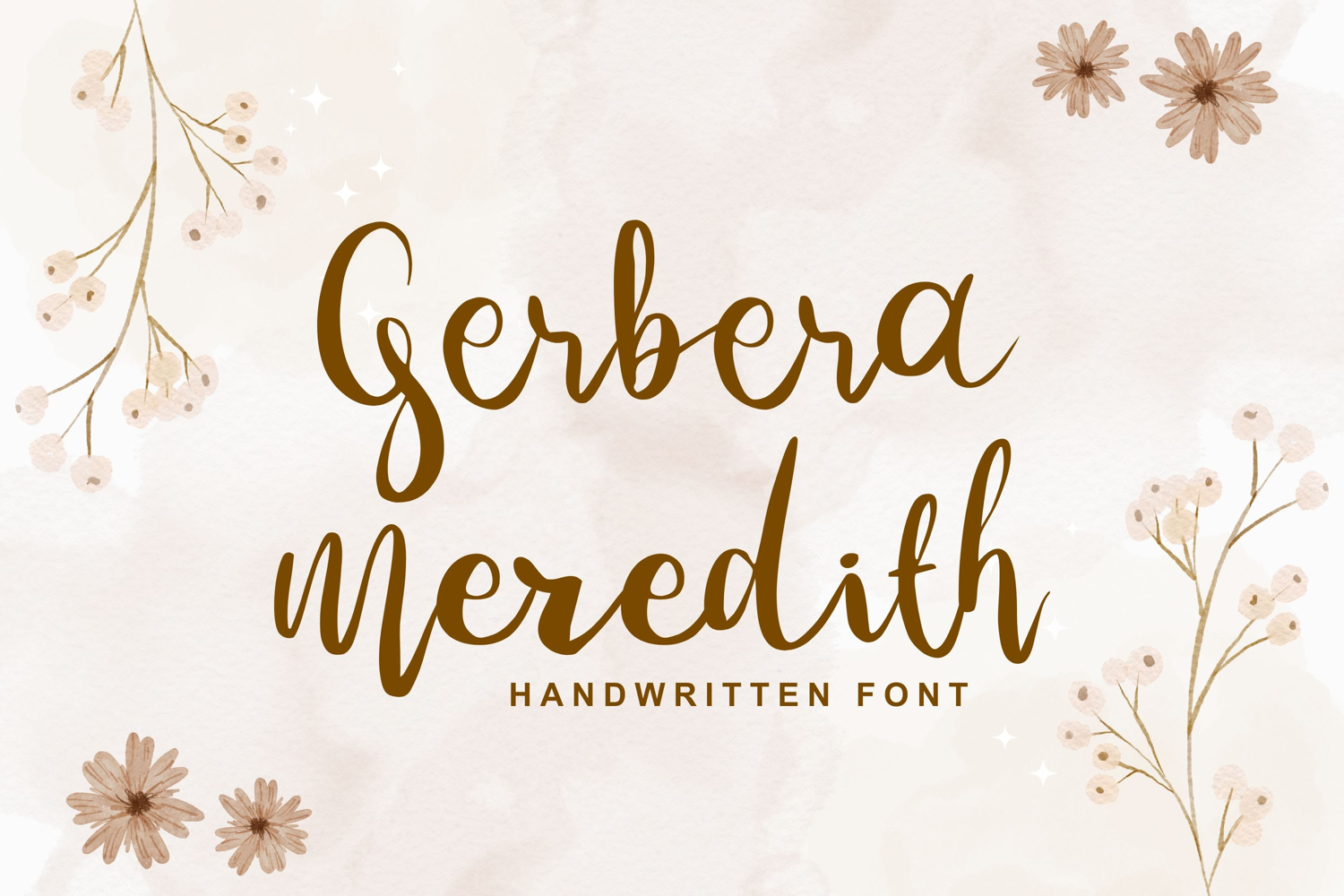
Gerbera Meredith
Gerbera Meredith Regular
A lettering-style font inspired by hand-drawn typography, featuring carefully crafted letterforms, artistic strokes, and a custom-made appearance. It combines the charm of handmade lettering with polished design, making it ideal for logos, branding, packaging, quotes, and creative projects.
Featured with ligatures, swashes and few alternates characters to give the font a more authentic handmade appearance.